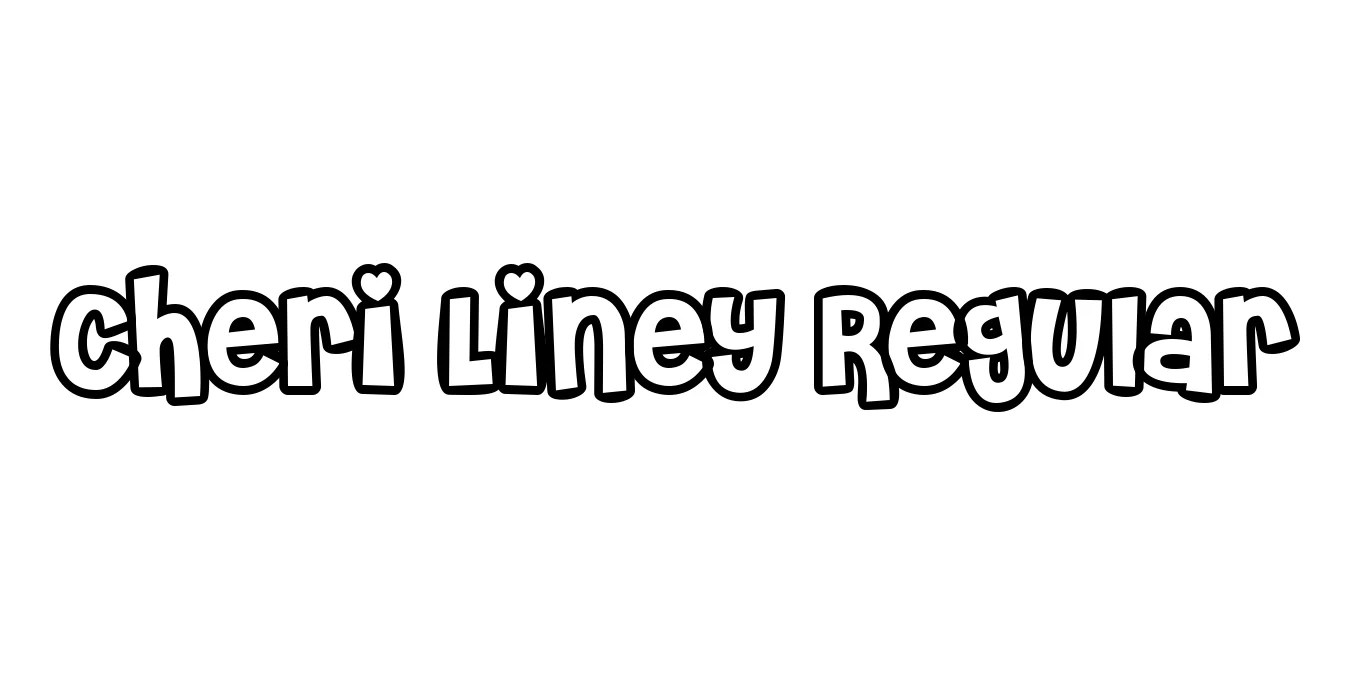
Cheri Liney Regular
Designed by Ben Balvanz (Fontalicious)
| Category | Display / Decorative |
| Designer | Ben Balvanz (Fontalicious) |
| Similar Fonts | Cheri, Janda Happy Day, Bubblegum Sans, KG Bubblegum |
Cheri Liney Regular is a whimsical and decorative typeface created by Ben Balvanz under his well-known Fontalicious label. It serves as the outlined or "inline" counterpart to the solid Cheri font, characterized by its soft, rounded bubble letterforms. One of its most iconic features is the replacement of standard dots over the lowercase 'i' and 'j' with stylized hearts, which reinforces its playful and affectionate personality.
Released during the early 2000s, this font quickly became a staple in the digital design community for projects requiring a youthful and feminine aesthetic. Because of its open-stroke design, it is particularly popular for layering effects and color-filling in scrapbooking and DIY craft applications. It remains a definitive example of the bubble-letter trend, offering a nostalgic yet functional choice for high-impact display use.
Cheri Liney Regular Best Uses
Excellent for Cricut and silhouette vinyl cutting projects.
Perfect for birthday parties, baby showers, and Valentine's Day cards.
Ideal for toy packaging, candy shops, or beauty brands targeting youth.
Great for eye-catching headers on Pinterest and Instagram graphics.